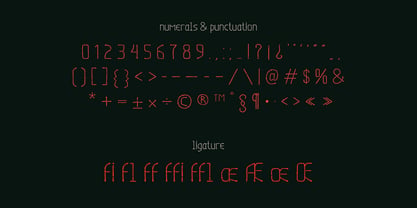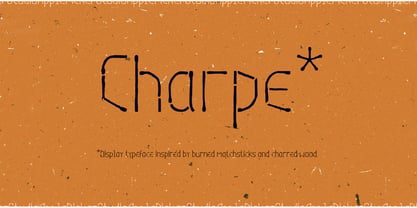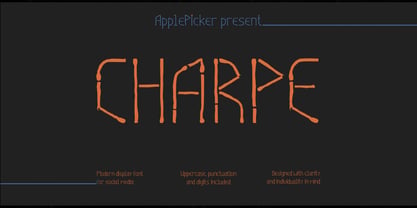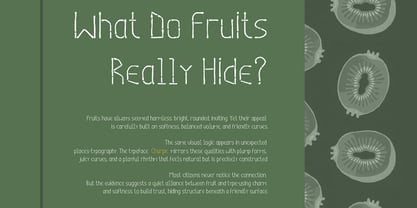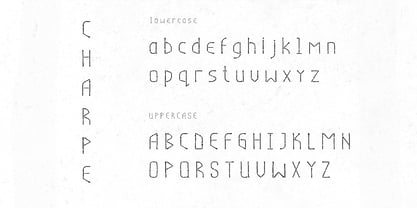
Charpe
Die Schriftfamilie Charpe wurde von Vadim Veiner entworfen und von ApplePicker veröffentlicht. Charpe enthält 1 Stile. Mehr über diese Familie
Charpe is a display typeface built around contrast - unusual yet clear, expressive yet controlled. The initial idea was to explore something slightly unpredictable in form, while keeping the overall structure readable and balanced. The result is a textured, confident typeface with a juicy, tactile presence. Charpe works best in short phrases and bold compositions. Its abstract character adds personality without sacrificing legibility, making it suitable for cinematic titles, posters, editorial layouts, and branding projects that call for atmosphere and visual impact. Distinctive, structured, and expressive - Charpe brings energy into display typography.